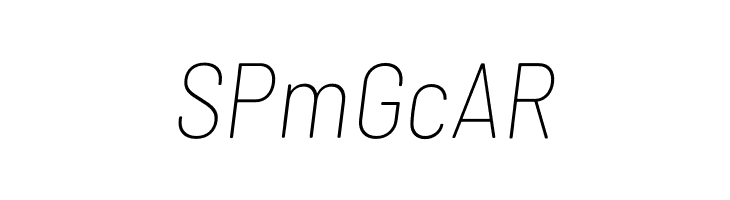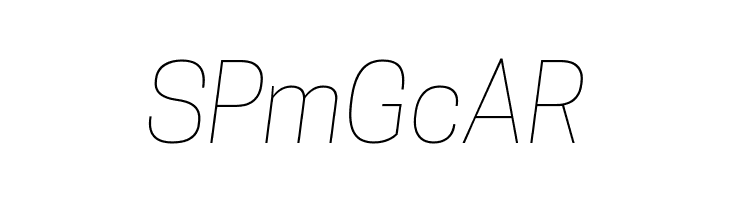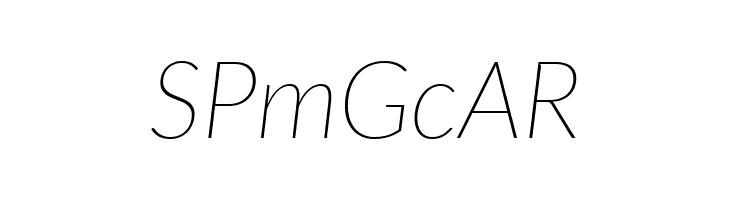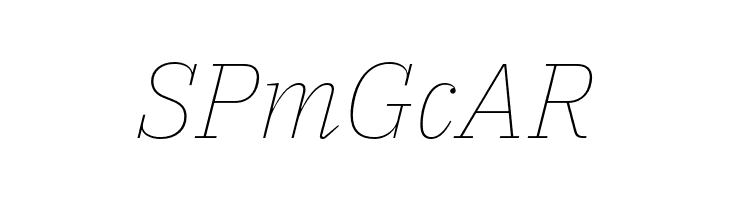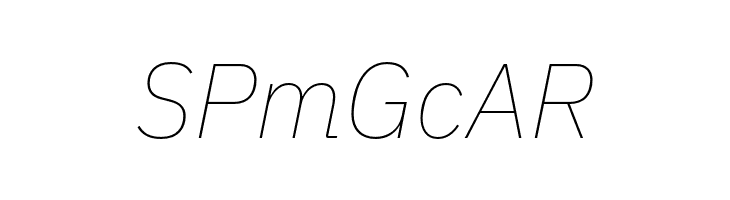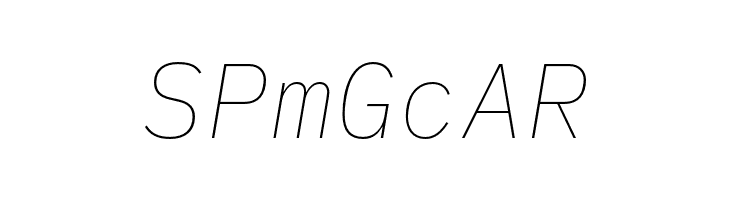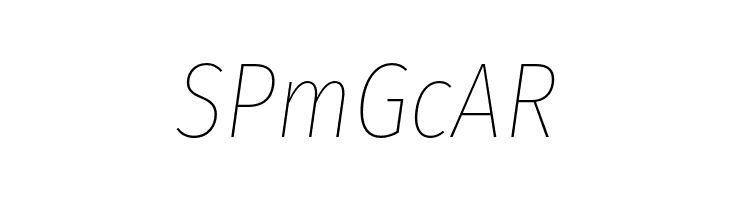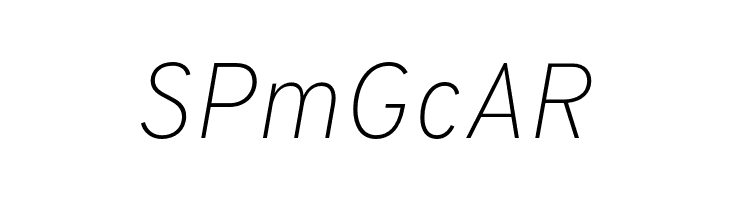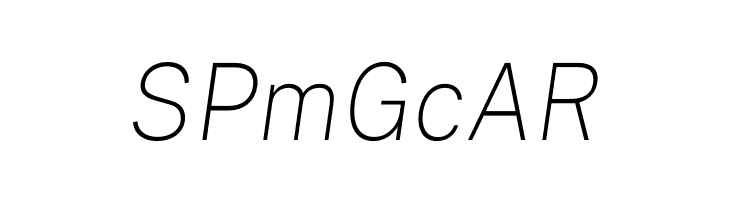
A sleek, modern semi-condensed thin italic font with elegant strokes.
A thin, italicized sans-serif font with a modern and elegant style.
A sleek, thin italic font with a modern and elegant design.
A refined, thin serif font with an elegant italic slant.
A thin, italicized sans-serif font with a modern and elegant style.
A thin, monospaced italic font with a modern and sleek design.
A sleek, modern, condensed thin italic font with a minimalist aesthetic.
A thin, italicized, and modern font with a sleek and minimalist design.
A thin, modern, and elegant italic font with a minimalist design.